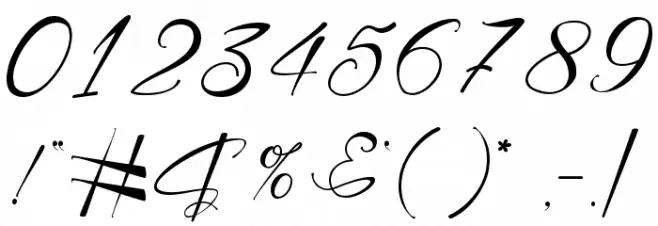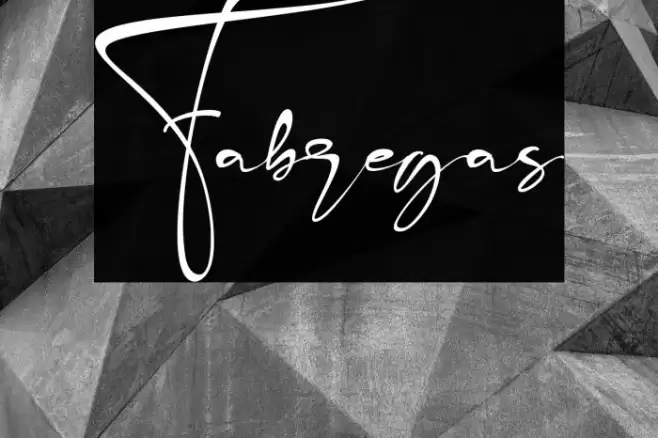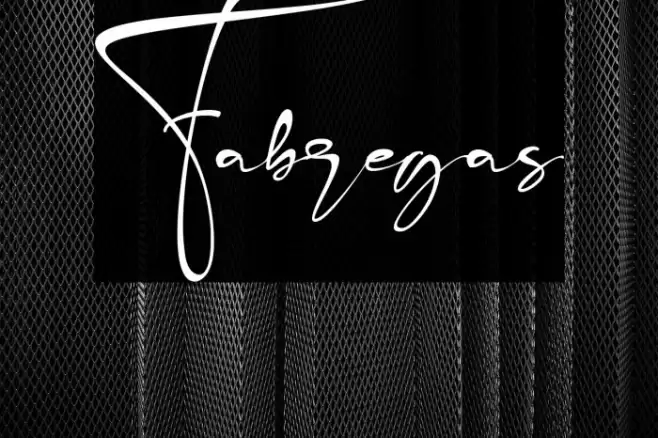
Fabregas Font
Fabregas Description
This font exudes a dynamic and elegant script style, characterized by its fluid and connected letterforms. The uppercase letters are particularly expressive, with sweeping curves and loops that give a sense of motion and grace. The lowercase letters maintain a consistent flow, enhancing readability while retaining a stylish flair. The numerals are distinct and harmonize well with the overall script aesthetic. Special characters are thoughtfully integrated, maintaining the font's cohesive look. This font is ideal for projects that require a personal touch, such as invitations, branding, or artistic designs.
| Overall Style | Elegant, Artistic |
| Use Case | Headlines, Invitations, Artistic Designs |
| Proposed Projects | Ideal for invitations, branding, artistic designs, and personal projects. |